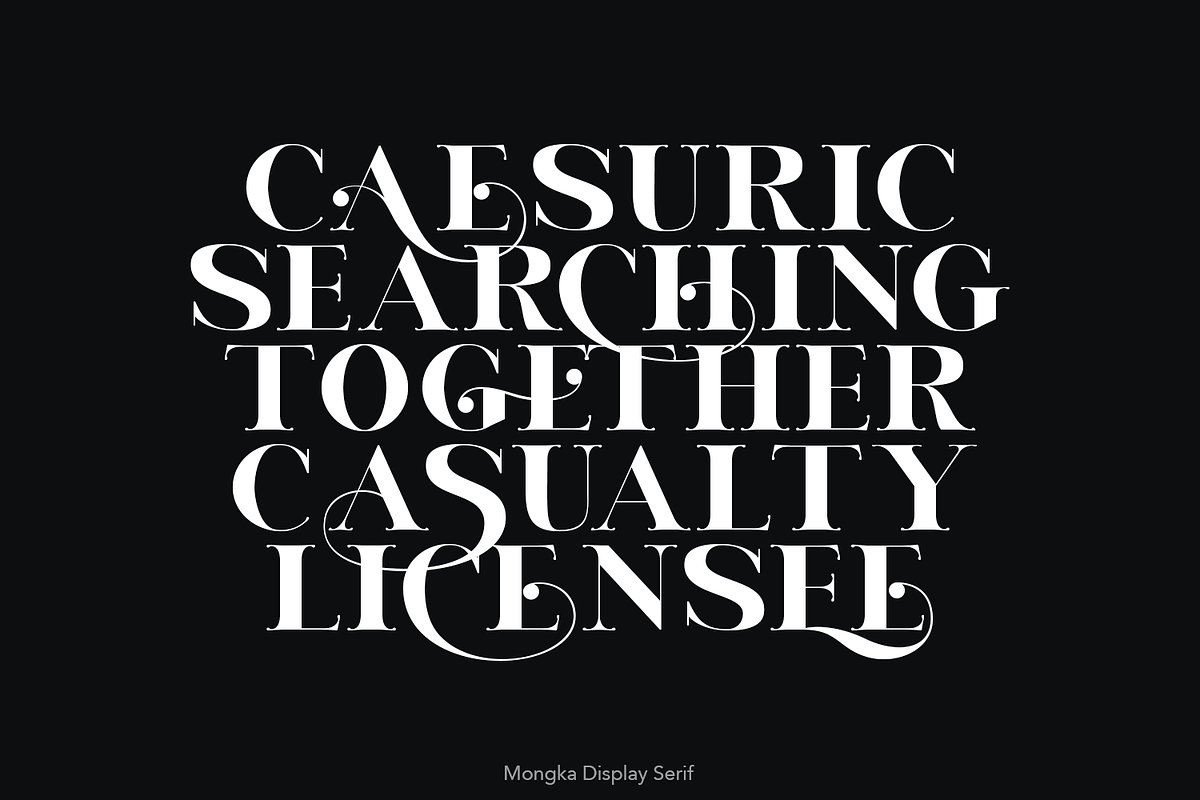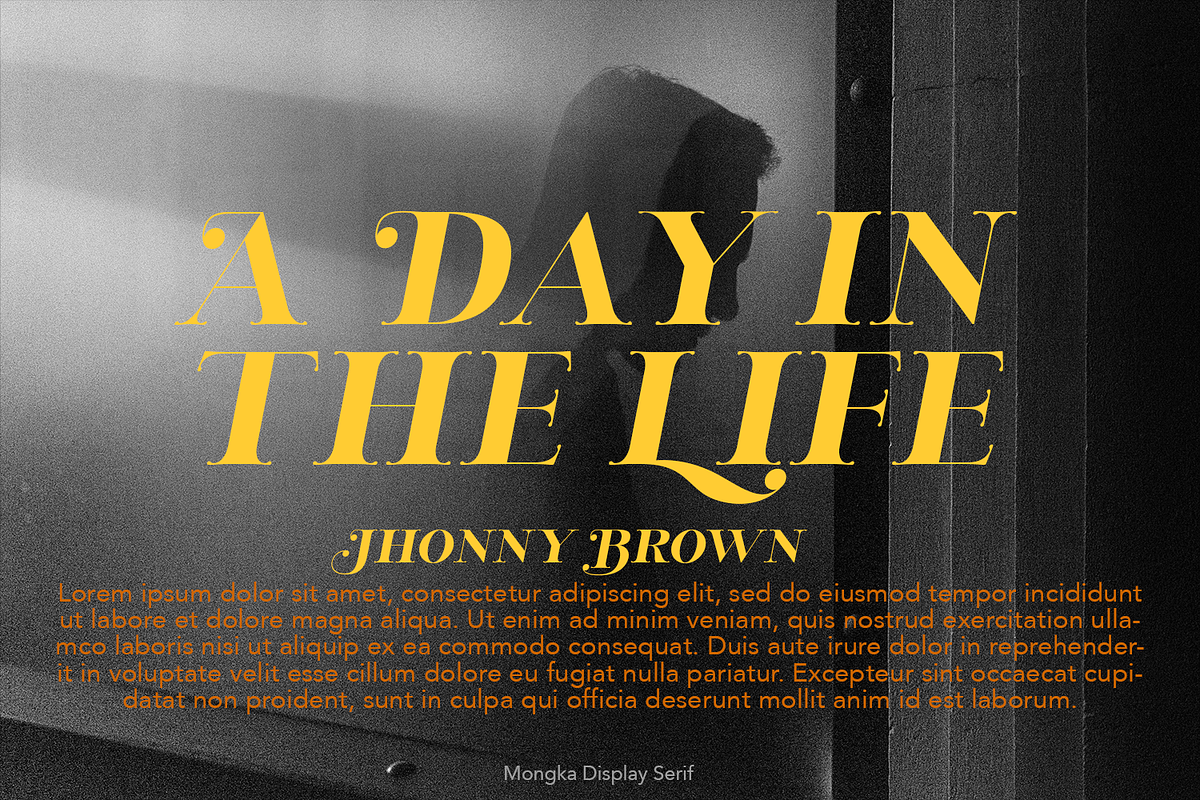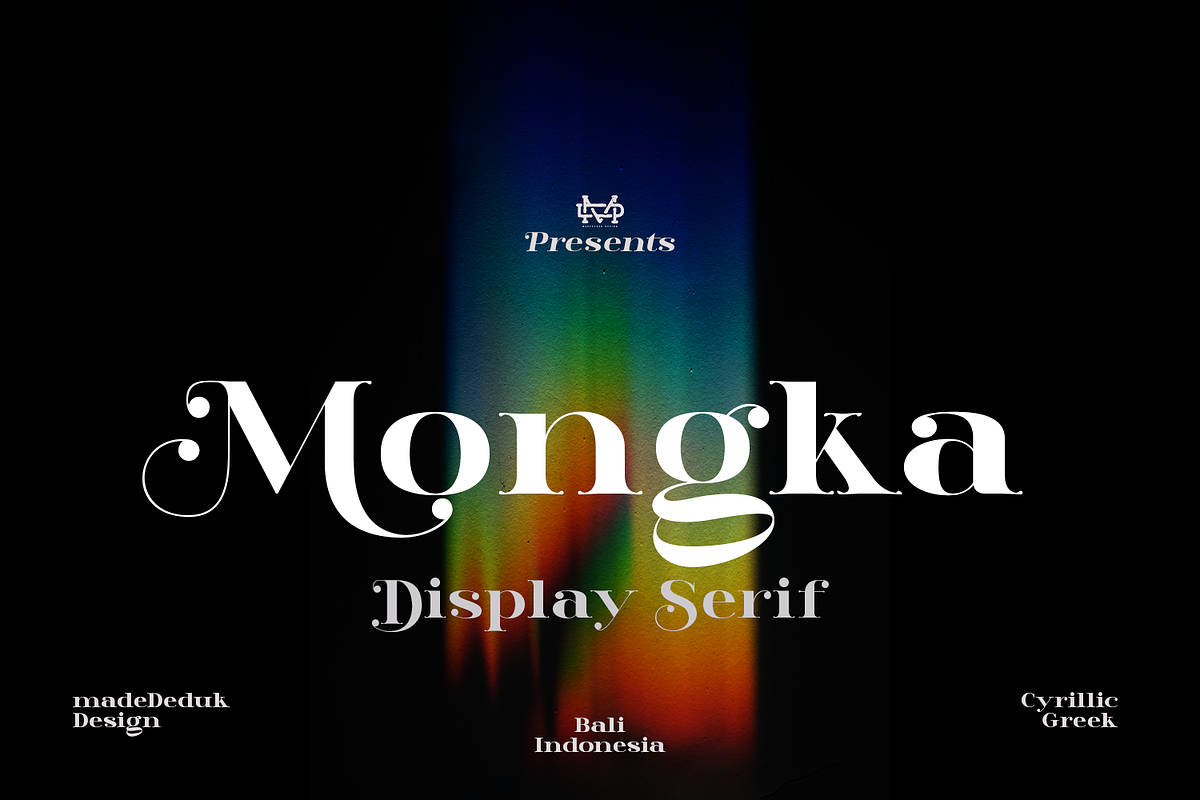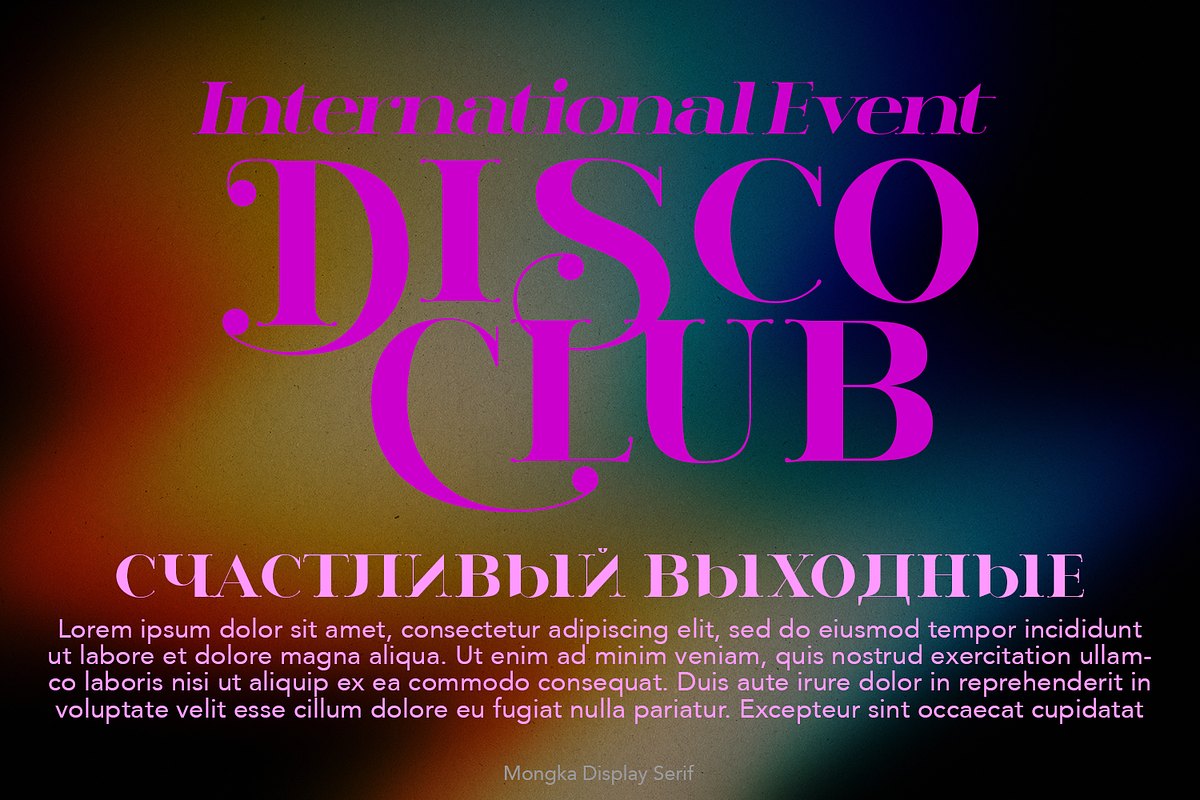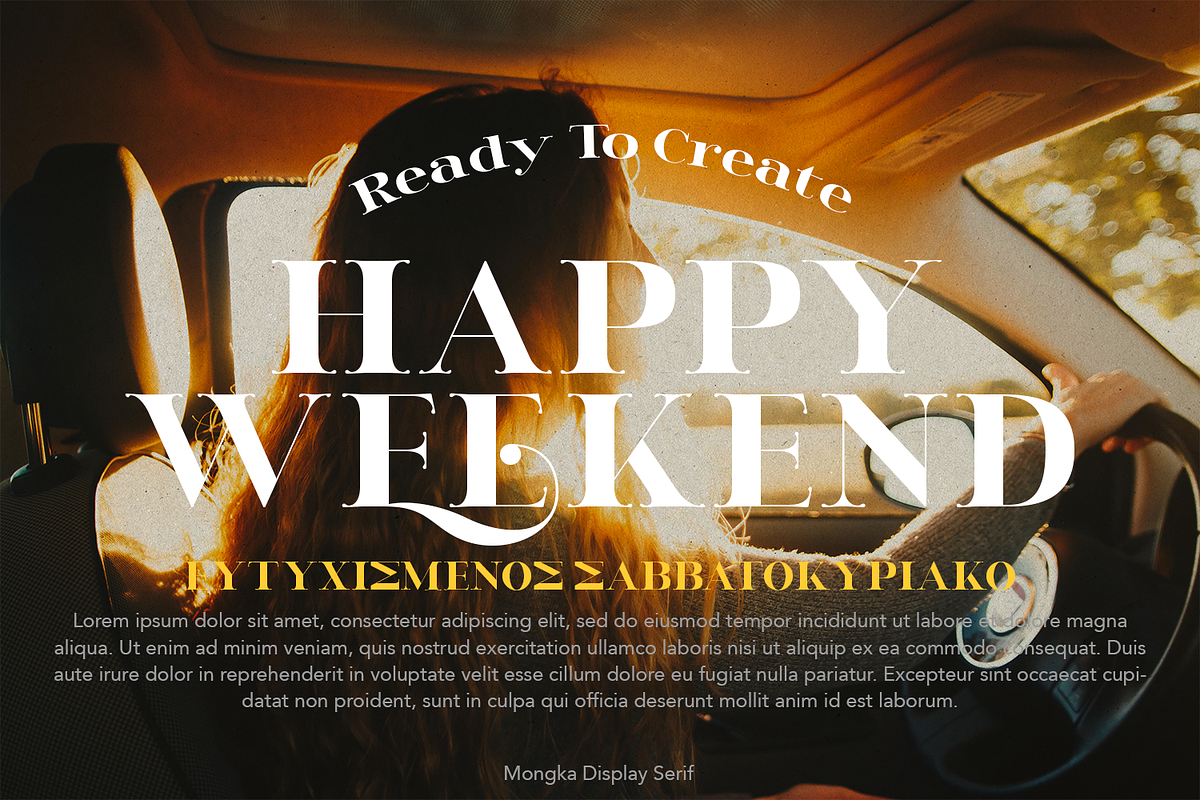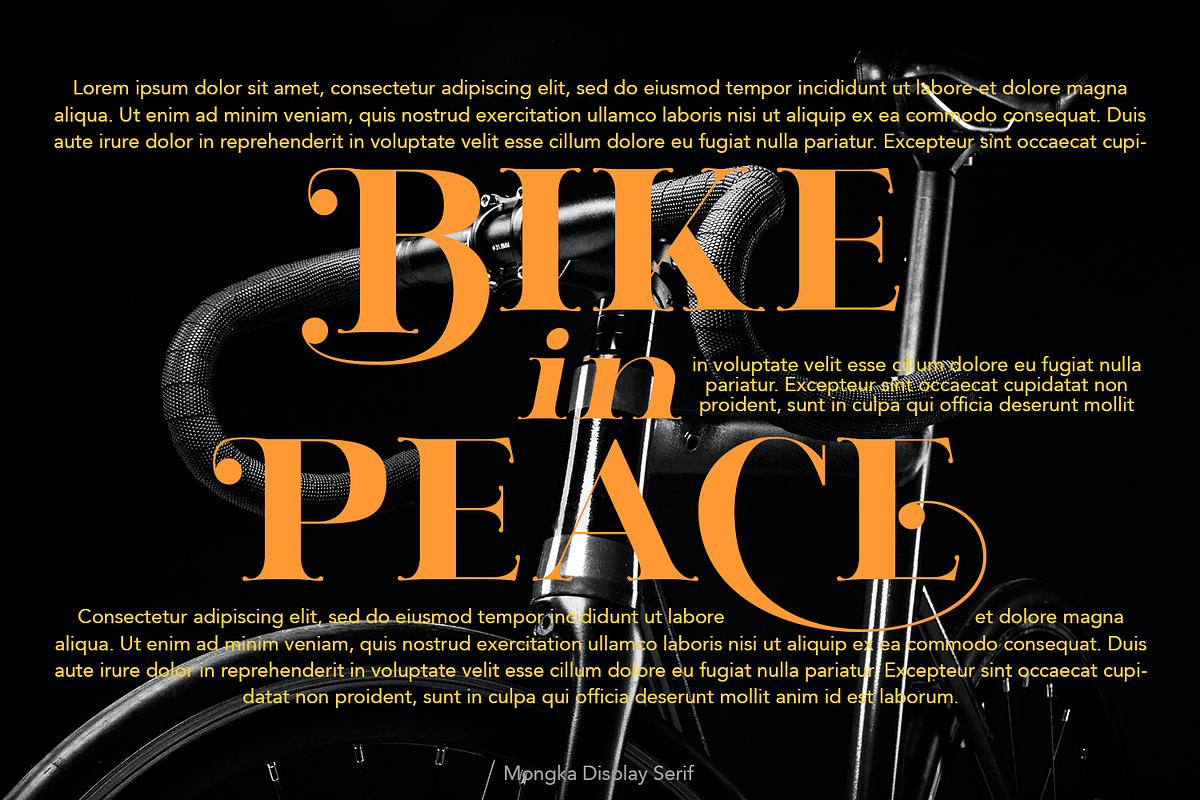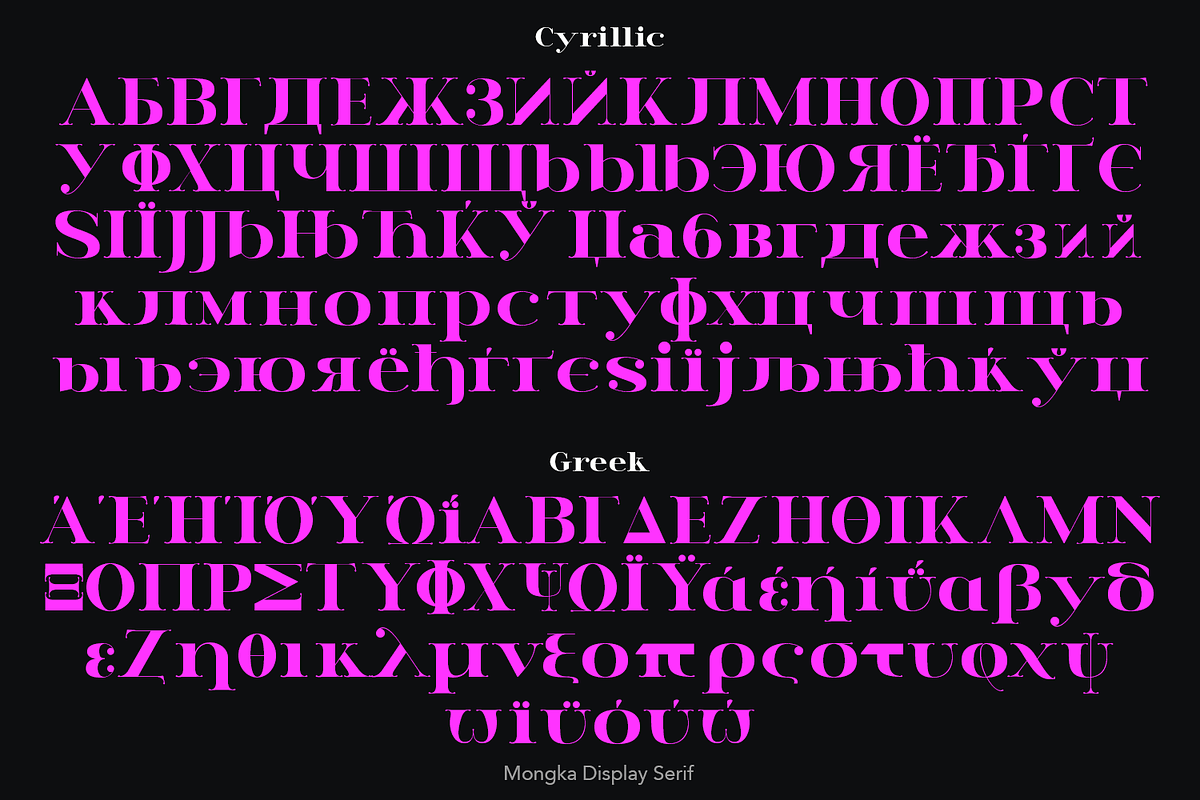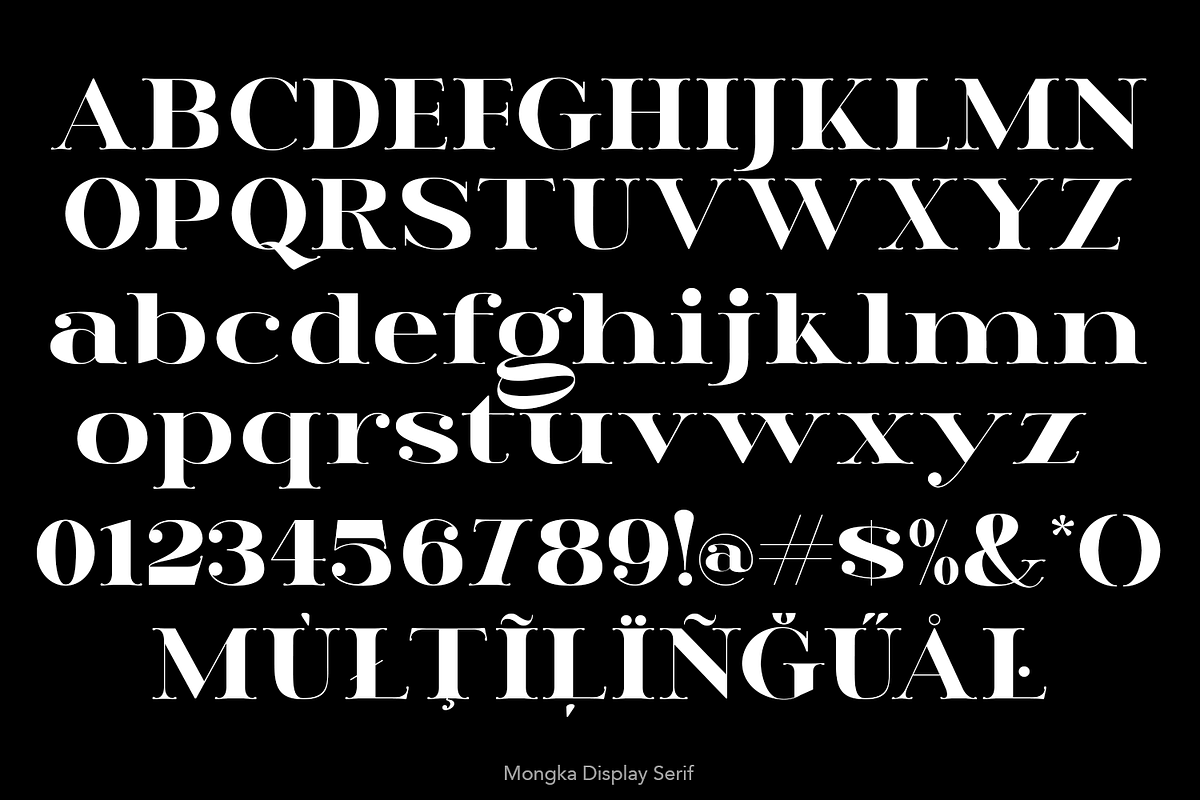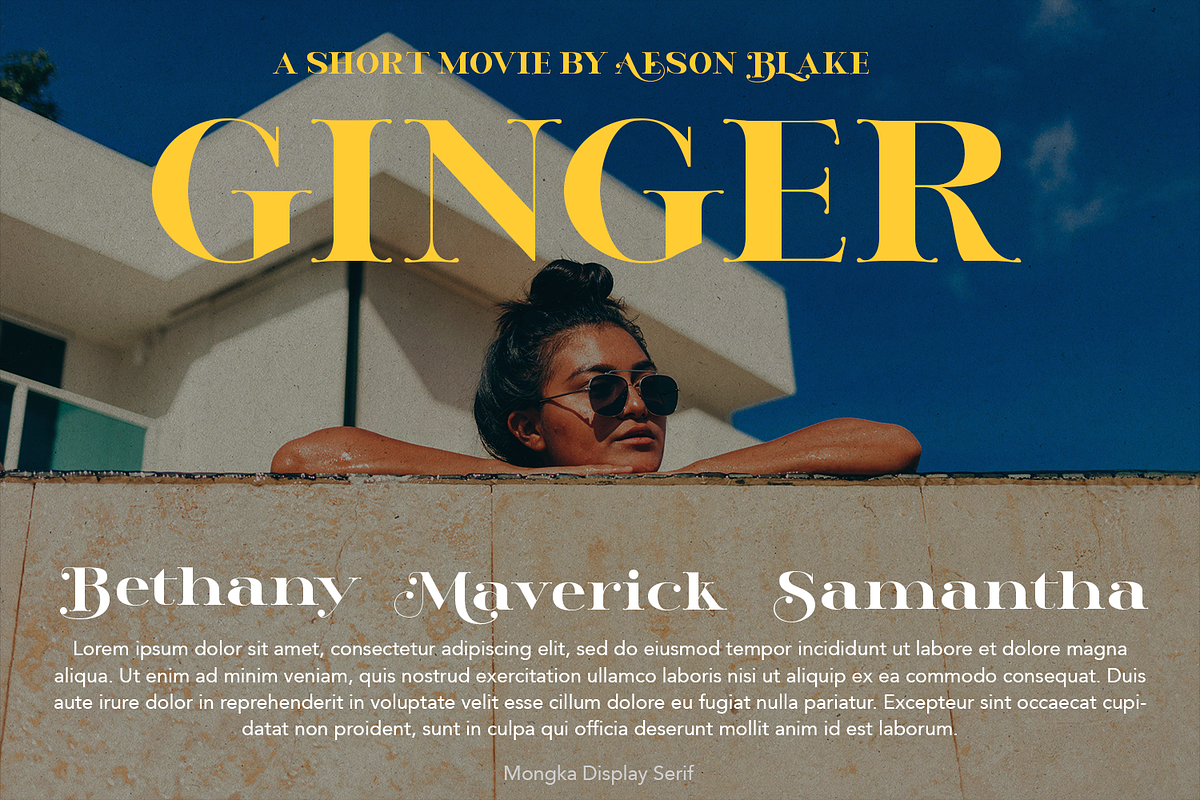
Mongka Display Font
Masterfully designed to become a stylish and elegant, this font has the potential to bring each of your creative ideas to the highest level. Combine with ligatures and special alternative glyphs so you can create a lots with layouts and compositions. Mongka brings a touch of luxury and bespoke custom typography to logos, websites, social media quotes, wedding branding, and more.
- International Glyphs (Cyrillic & Greek)